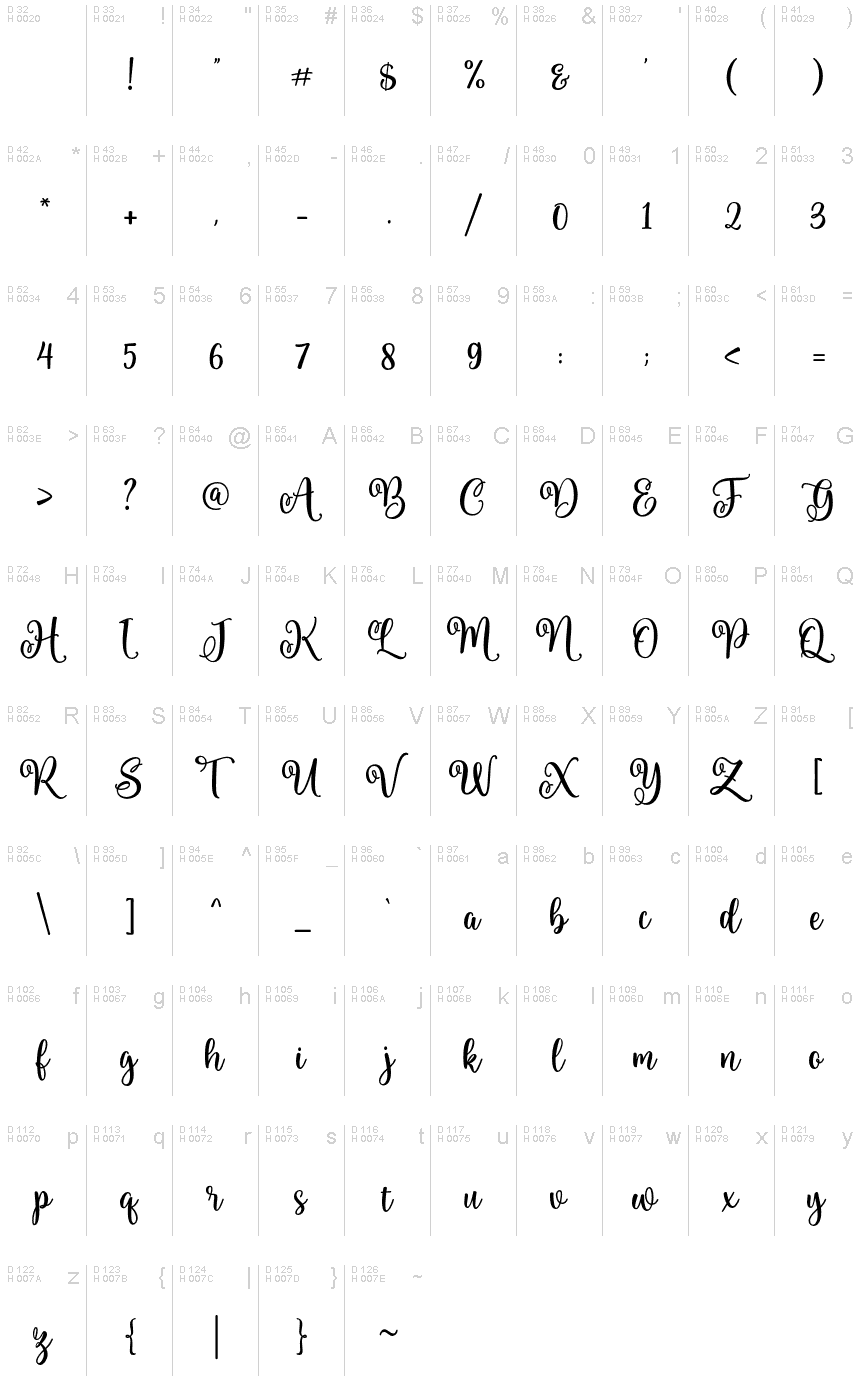
Alington
Alington, designed by Letternun, is a semi-light calligraphy font that exudes elegance and a touch of modernity. Its sweeping curves and fine lines are reminiscent of traditional calligraphy, yet it maintains a clean and contemporary look that makes it versatile for various design applications. The delicate weight of Alington gives it an airy quality, perfect for invitations, branding materials, and artistic projects where a hint of sophistication is desired.
Its aesthetic appeal lies in the balance between classic calligraphy charm and the minimalistic approach to letterform design, making Alington an excellent choice for creators looking to infuse their work with both grace and readability.